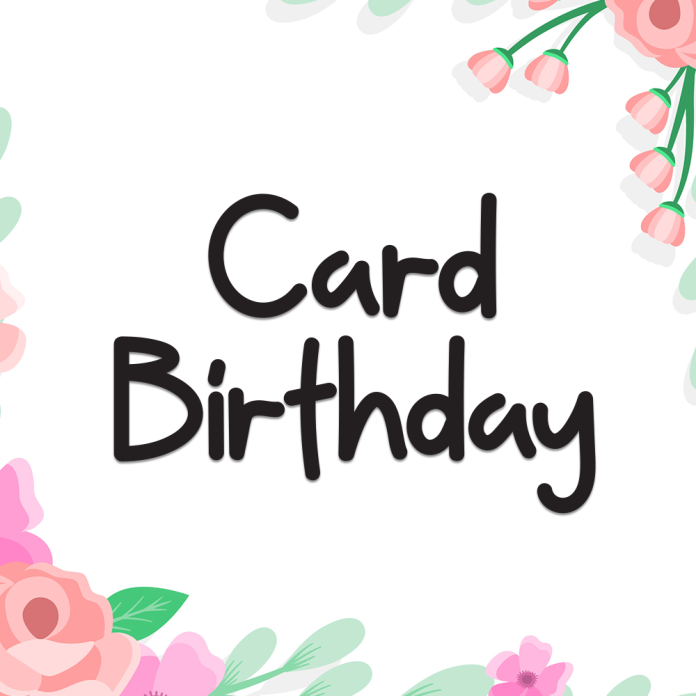
Card Birthday is a joyful and festive display font designed to bring happiness and excitement to your designs. Inspired by birthday cards and party themes, this font features bold, cheerful lettering that grabs attention.
Display style with playful and bubbly letterforms
Perfect for birthday cards, party invitations, posters, and kids' projects
Decorative uppercase and lowercase characters
Includes numerals and punctuation
Make every celebration brighter and more colorful with the lively spirit of Card Birthday!